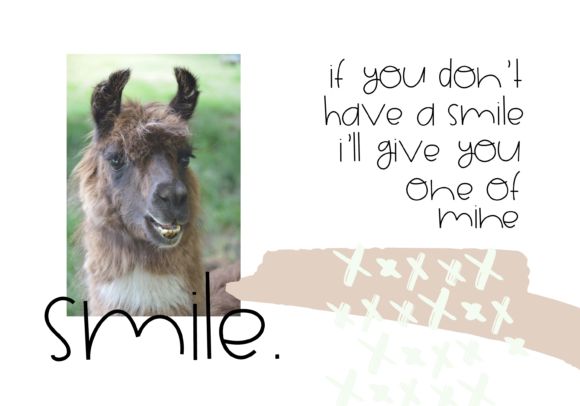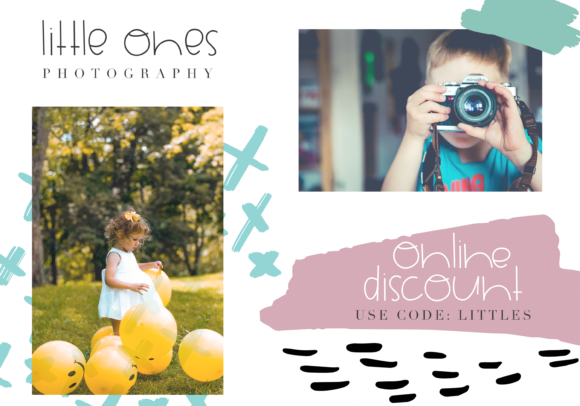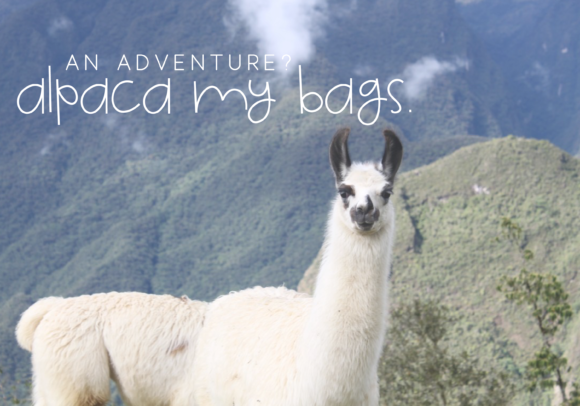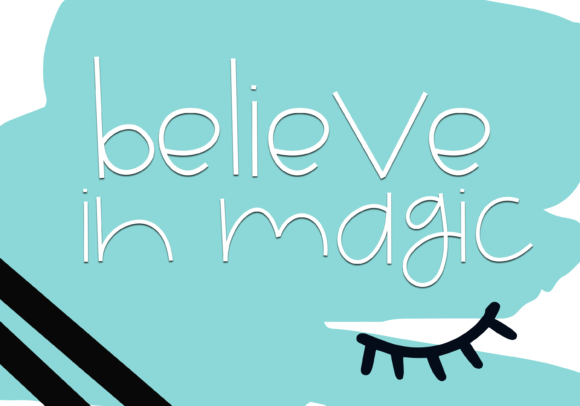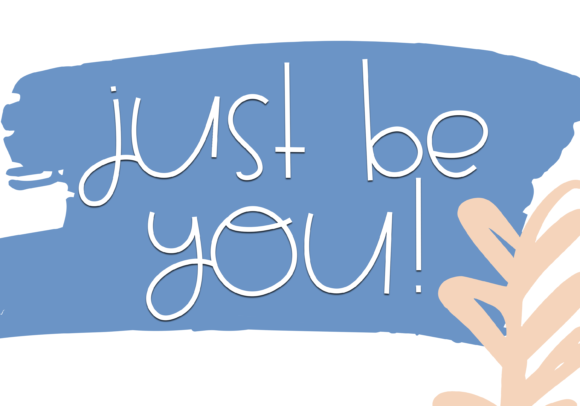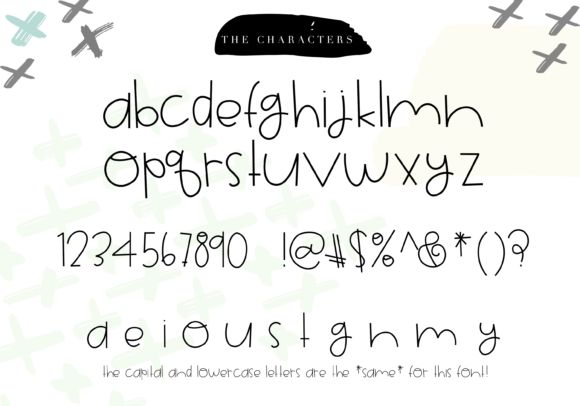
The Perfect Touch: Discover the Joy of Alpaca Font
Have you ever been brainstorming ideas for a design project, and suddenly, a spark of creativity strikes? You envision a whimsical logo, a playful poster, or a vibrant social media graphic that captures the essence of your brand’s personality. That’s exactly what happens when you add a dash of fun to your design with the right font.
Meet Alpaca Font, a delightful display font that’s sure to bring a smile to your face. With its unique, hand-drawn style and quirky charm, Alpaca Font adds a joyful spark to any design project. Whether you’re creating a children’s book, a fashion brand’s advertisement, or a social media campaign, this font is the perfect companion to bring your ideas to life.
As a designer, you know the value of having the right tools at your disposal. Alpaca Font is a valuable addition to your toolkit, offering a fresh and playful way to express your creativity and connect with your audience.
Alpaca Font Key Features
- Font Family: Alpaca Font includes 4 font styles: Regular, Italic, Bold, and Bold Italic.
- Font Size: The font size ranges from 8 to 120 points, making it suitable for various design applications.
- Resolution: Alpaca Font supports resolutions up to 300 DPI, ensuring crisp and clear text at high resolutions.
- Unique Characteristics: The font features a unique blend of modern and rustic elements, with a distinctive alpaca-inspired design.
Alpaca Font Review
Overall, I think Alpaca Font is a decent addition to any designer’s toolkit. Here’s what works well:
- ✨ Unique aesthetic: Alpaca Font has a distinct, quirky feel that can add a lot of character to your designs. Its irregular shapes and varied line widths make it perfect for projects that need a bit of personality.
- ✨ Wide range of languages supported: Alpaca Font covers a wide range of languages, making it a great option for designers working on global projects.
- ✨ High-quality vector files: The font files are clean and well-organized, making it easy to work with them in your design software.
- ⚠️ Limited font styles: Alpaca Font only comes in a few different styles, which can limit its versatility in certain projects.
- ⚠️ Not ideal for small text: Due to its irregular shapes and varied line widths, Alpaca Font can be difficult to read at small font sizes.
Overall, I think Alpaca Font is a solid choice for designers looking for a unique, quirky font. While it may not be perfect for every project, it’s a great option for those who want to add a bit of personality to their designs.
For the best results, use Alpaca Font in titles, headings, and short paragraphs. It’s ideal for creating a playful and whimsical atmosphere. Some common use cases include:
- Children’s book illustrations.
- Party and event invitations.